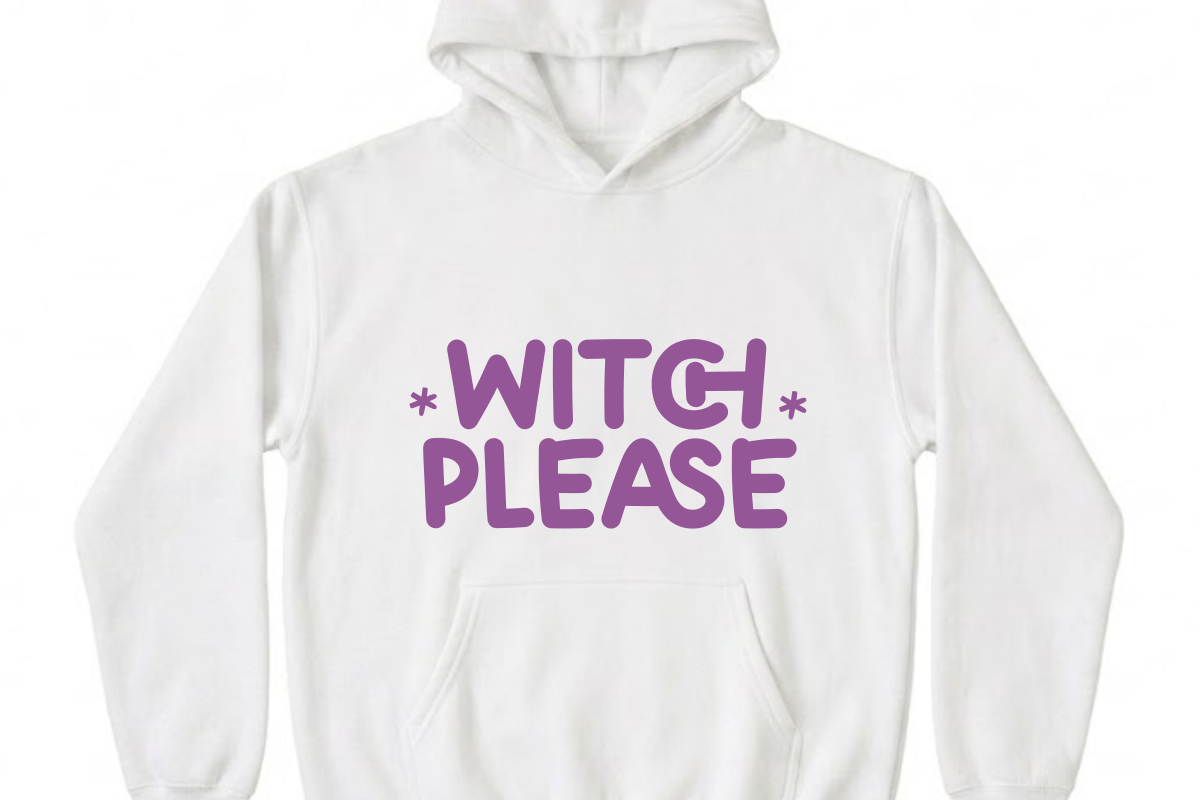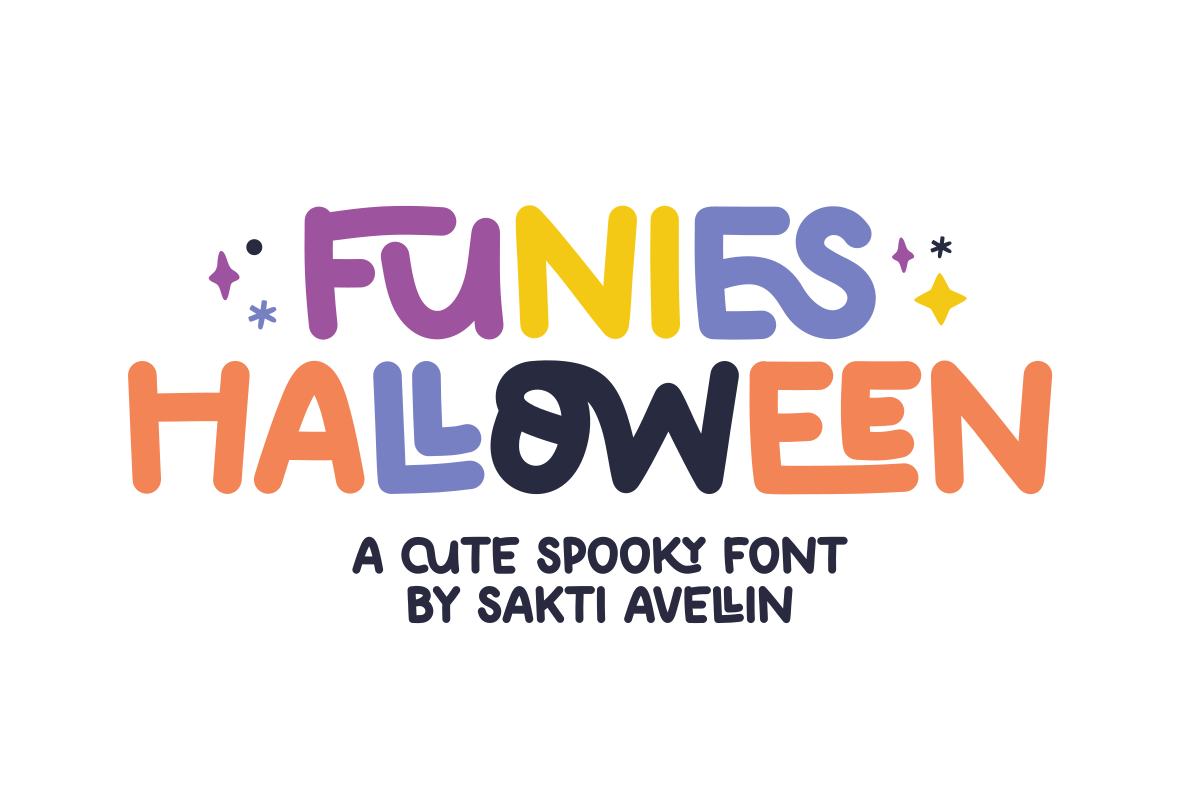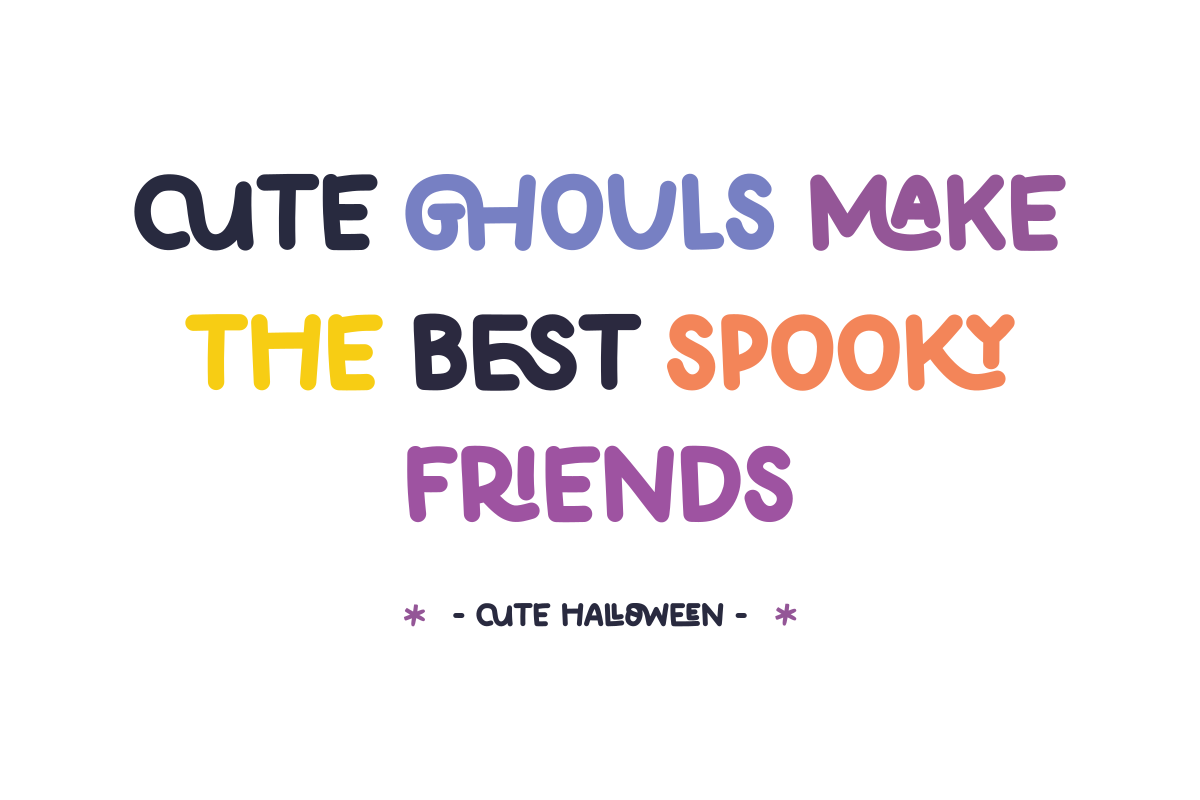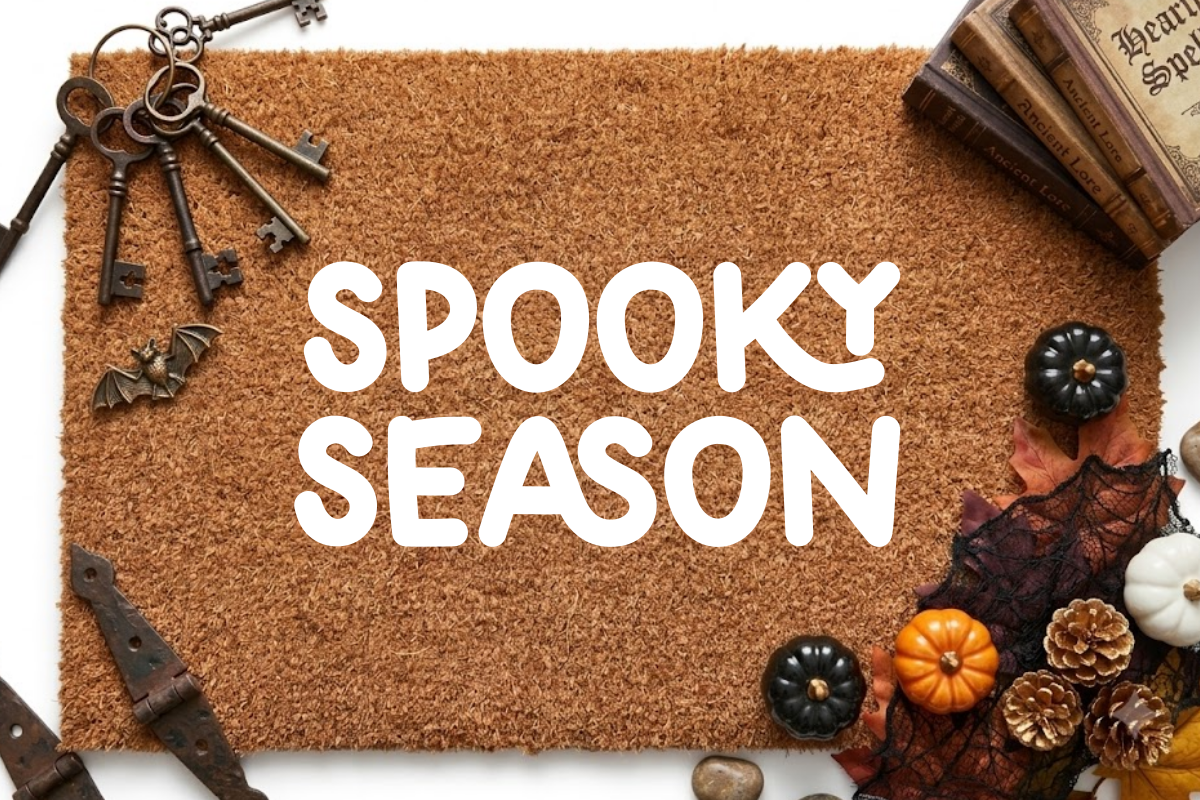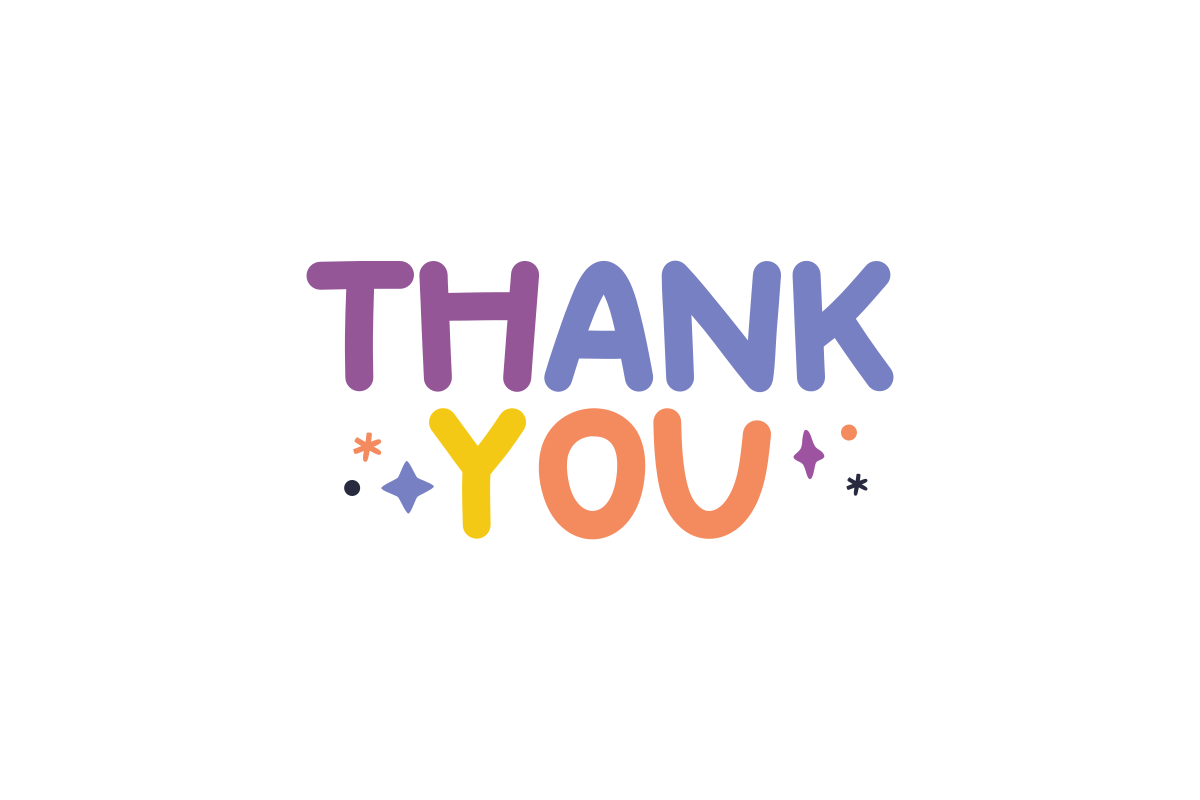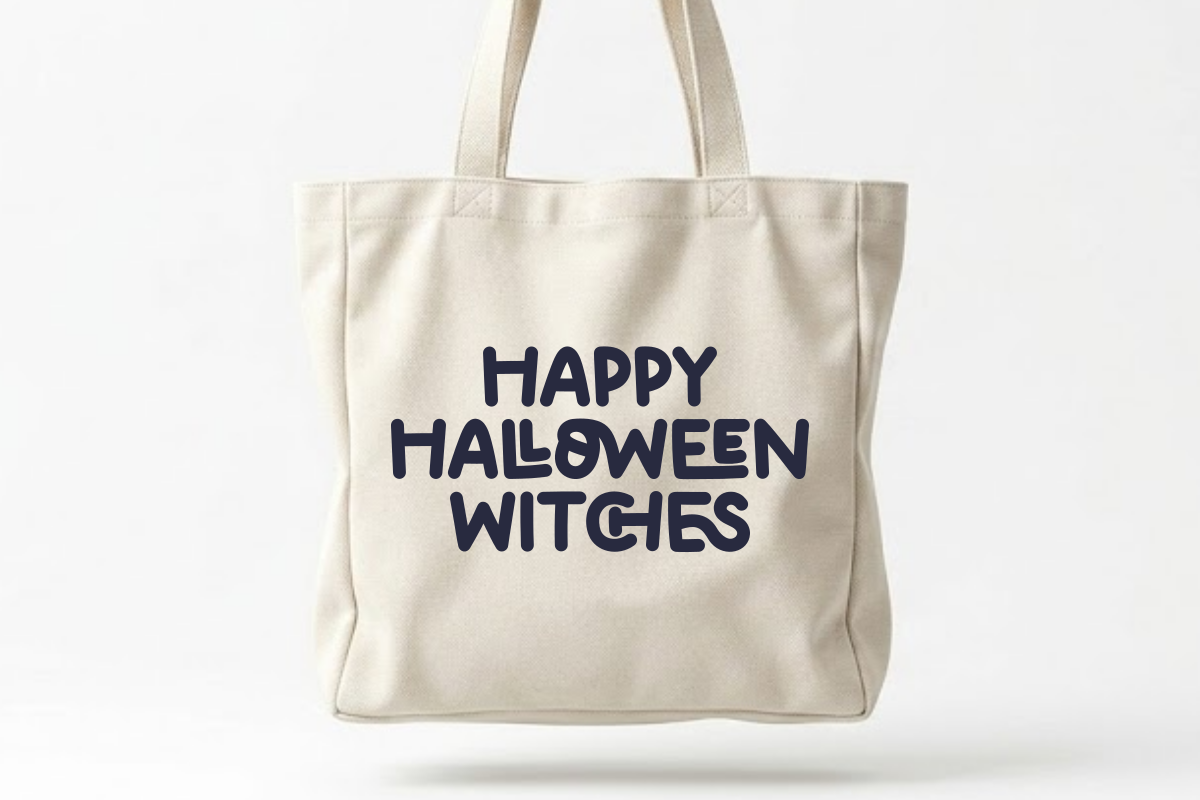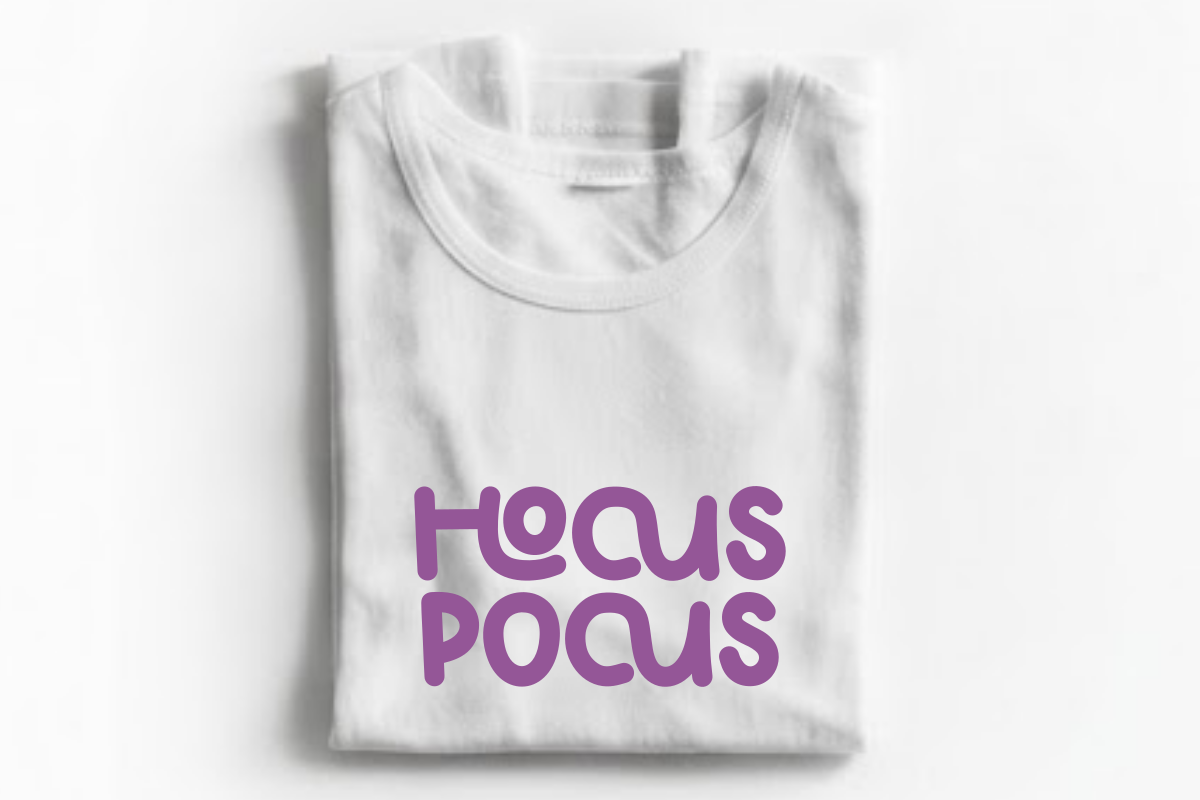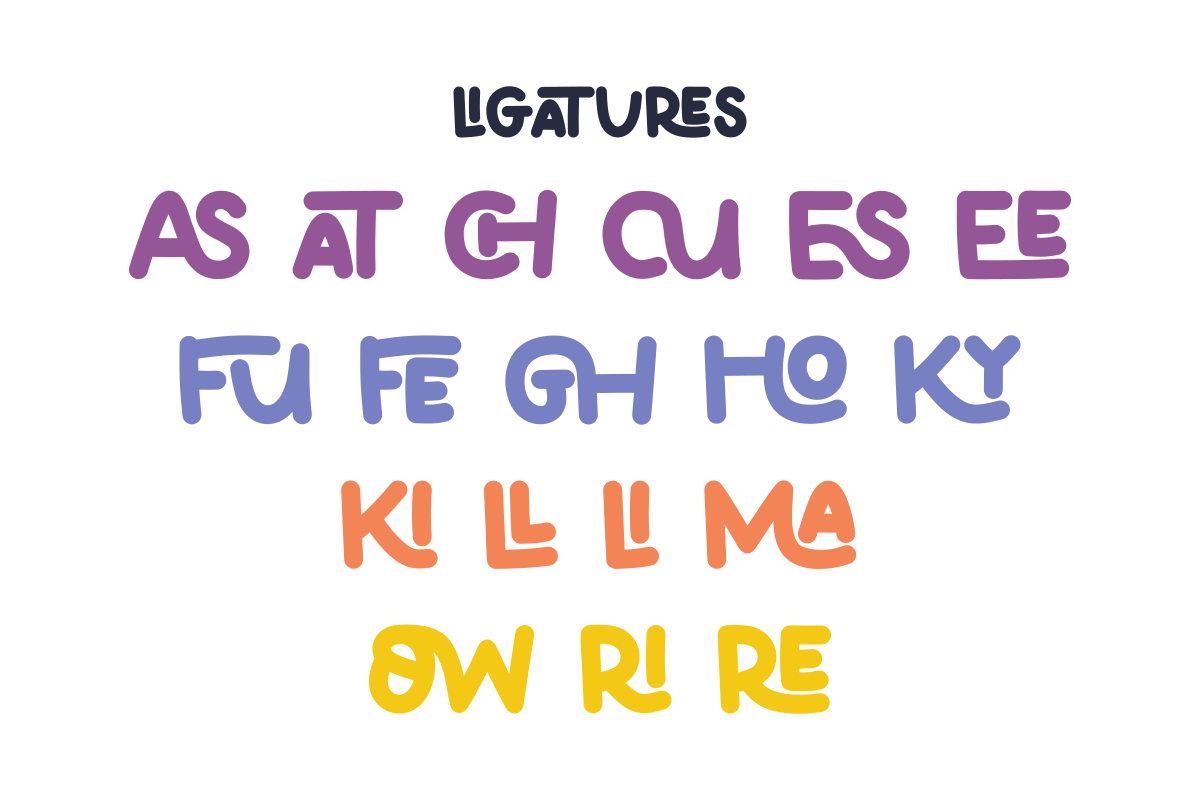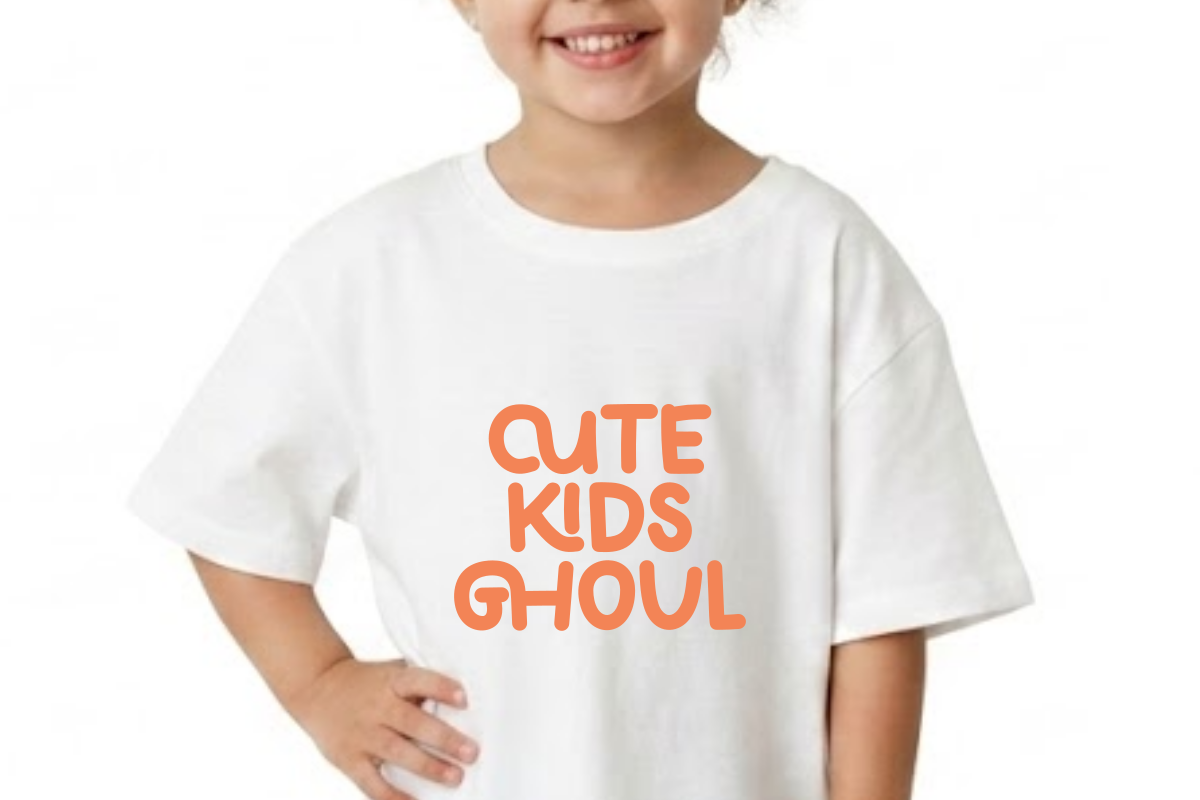
Funies Halloween - Cute Display Font
Funies Halloween is a charming and playful cute spooky font designed to bring a fun, lighthearted energy to your creative projects. This display typeface features friendly, wavy letterforms that effortlessly balance a festive seasonal mood with an adorable charm. Perfect for Halloween branding, party invitations, spooky stickers, children's events, and cheerful social media graphics, this font ensures your headlines stand out with a unique, handcrafted personality. Whether you are designing for trick-or-treat merchandise, seasonal crafts, or whimsical posters, Funies Halloween adds a delightful and creative touch to every design.